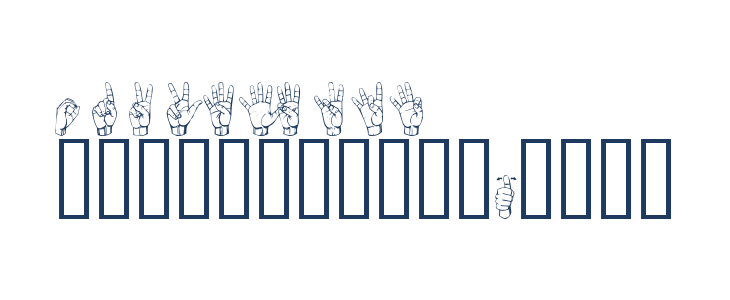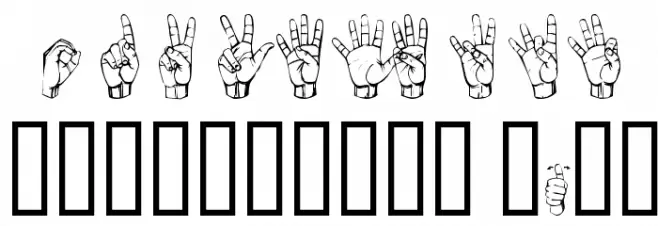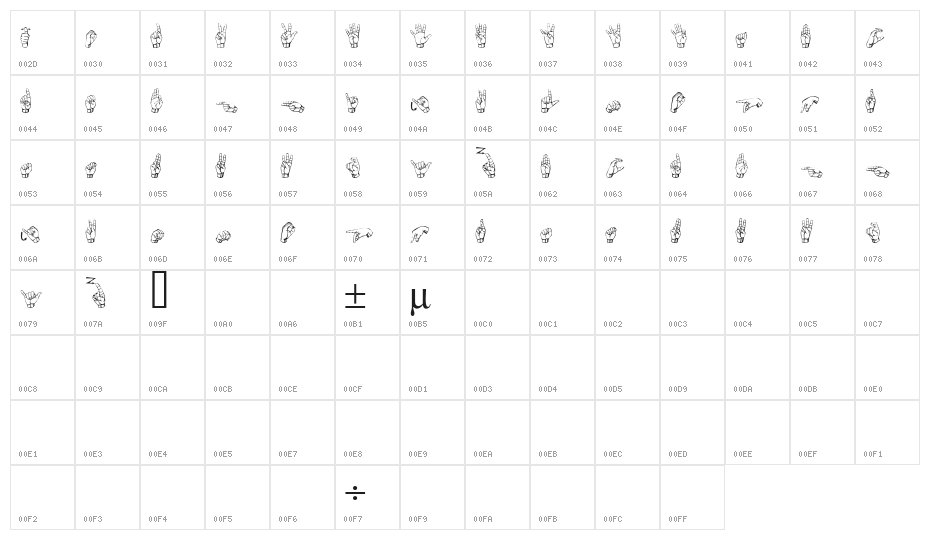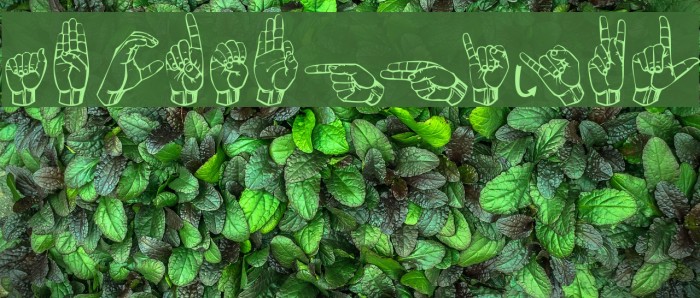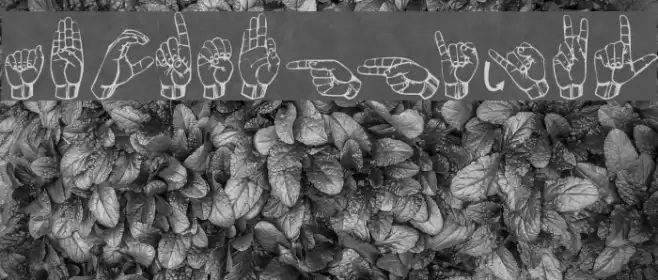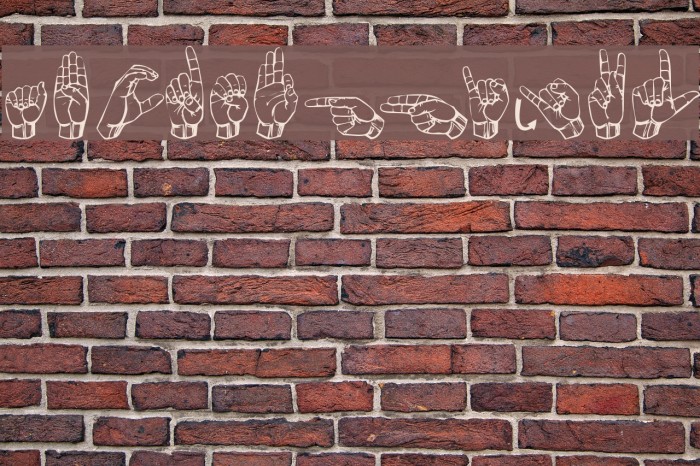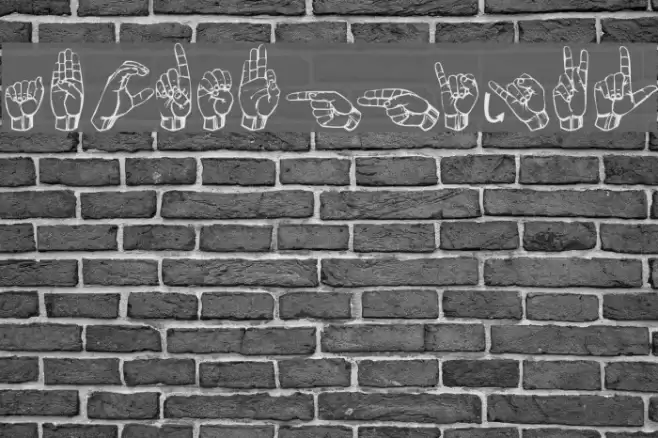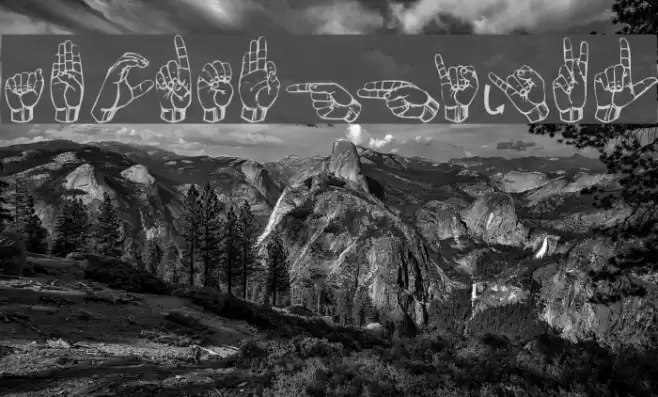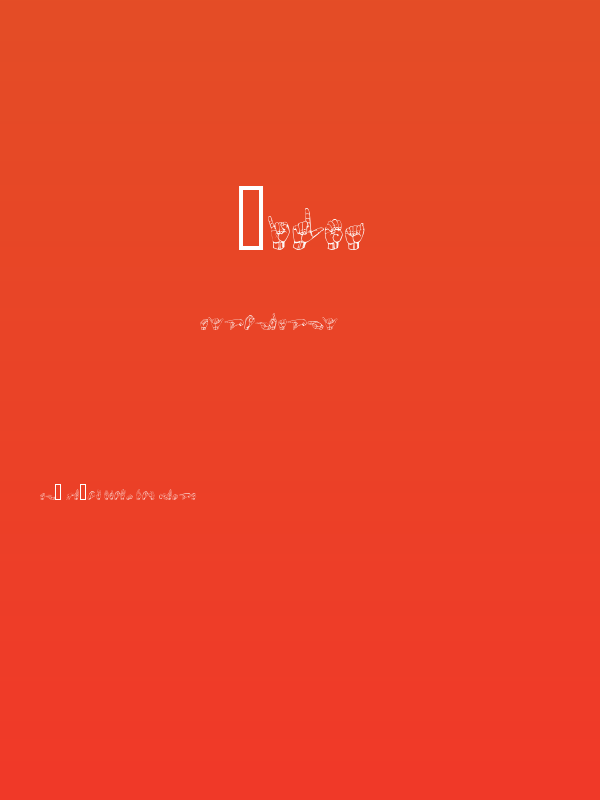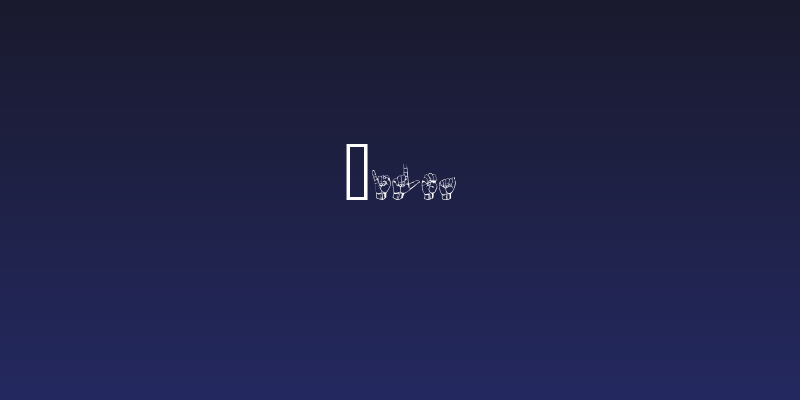
Milea Font
Milea Description
This is not a traditional font but a representation of the American Sign Language (ASL) alphabet using hand gestures. Each letter is depicted through a distinct hand shape, providing a visual and tactile way to communicate. The design is detailed, capturing the nuances of each gesture, making it an educational tool for learning ASL. The style is illustrative and clear, focusing on accuracy and readability.
| Overall Style | Educational, Illustrative |
| Use Case | Educational materials, ASL resources |
| Proposed Projects | Ideal for educational materials, ASL learning resources, and inclusive communication tools. |